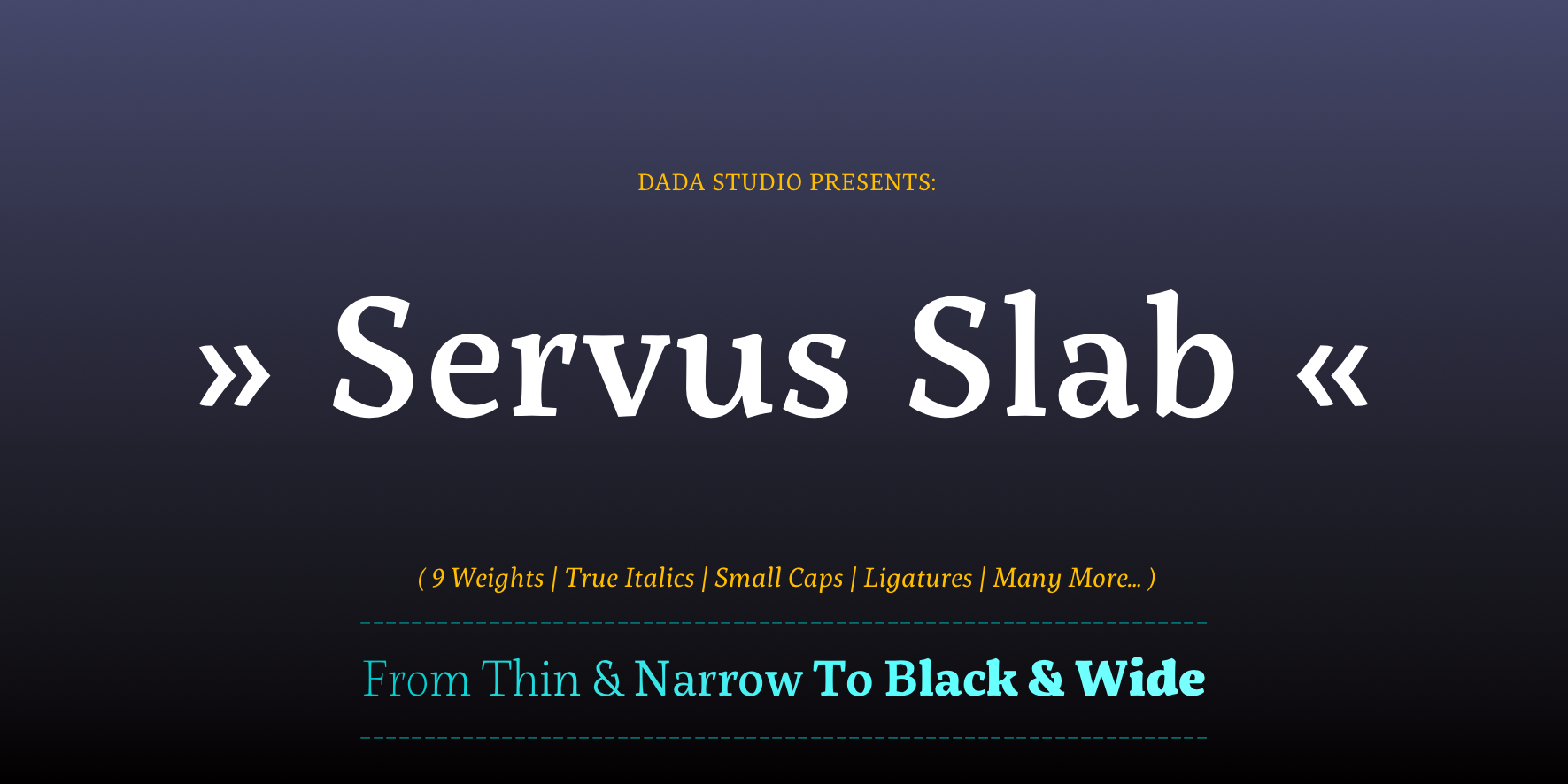
Servus Slab Font is perfect for editorial magazine layouts, newspaper headlines, corporate annual reports, architectural firm branding, museum exhibition signage, academic textbooks, professional presentations, and contemporary publishing projects.
Servus Slab Font is exciting because it masterfully combines the robust presence of traditional slab serif design with modern typographic refinement, creating a typeface that delivers exceptional readability and commanding visual impact across all media formats. Its balanced proportions and contemporary styling make it the perfect choice for brands that need to communicate authority and reliability while maintaining approachable sophistication.
The Servus Slab Font family includes comprehensive weight options: Servus Slab Thin, Servus Slab Light, Servus Slab Regular, Servus Slab Medium, Servus Slab Bold, and Servus Slab Black, along with matching italic styles and condensed versions, providing designers with extensive typographic flexibility for complex editorial and corporate projects.
When exploring contemporary slab serif typography solutions, Servus Slab Font Free Download stands out as the definitive choice for designers working on editorial and corporate projects that require strong visual presence combined with excellent readability. This versatile typeface bridges the gap between traditional newspaper typography and modern digital design, making it particularly effective for publications that need to maintain credibility while appealing to contemporary audiences. The font's robust character construction ensures consistent performance across various applications and sizes.
Editorial professionals consistently rely on Servus Slab Font for projects demanding superior legibility and authoritative presence. Its expertly engineered letterforms feature slab serif characteristics that work exceptionally well in both traditional print publications and modern digital reading environments. The font's ability to convey trustworthiness and professionalism while maintaining inviting accessibility makes it invaluable for comprehensive publishing systems in journalism, corporate communication, and academic sectors.
Whether you're developing newspaper layouts, creating corporate communication materials, or designing academic publications, Servus Slab Font delivers the editorial excellence and professional credibility that serious publications require. Its proven performance in demanding reading applications, combined with its comprehensive family structure, makes it an essential tool for designers who prioritize both typographic quality and functional reliability in their editorial choices.